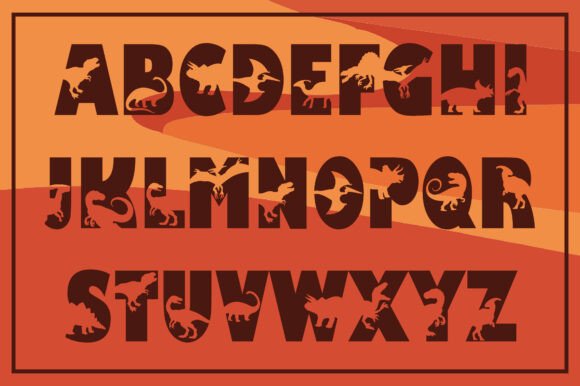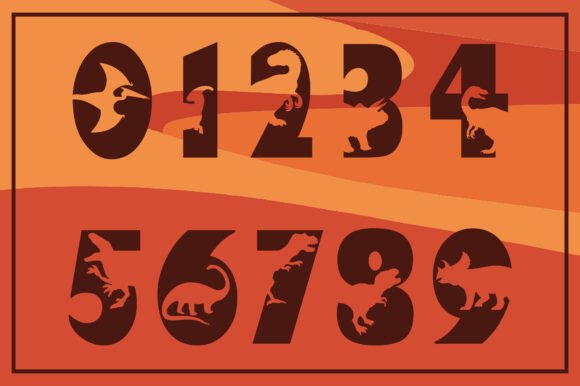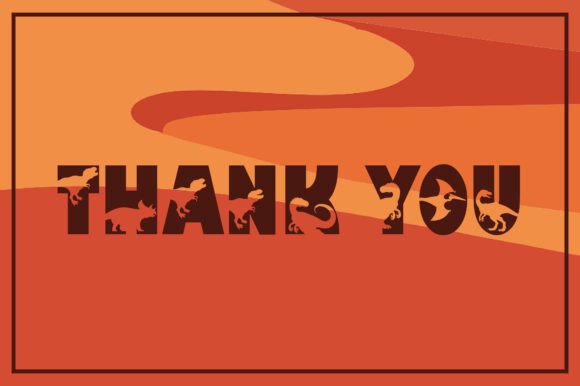
Bringing Prehistoric Fun to Your Projects with Dinosaur Font
As a designer, I’ve had my fair share of projects that required a playful touch. One particular project that comes to mind is when I was tasked with creating a birthday party invitation for a 5-year-old dinosaur enthusiast. I spent hours scouring the internet for the perfect font, but nothing seemed quite right. That was until I stumbled upon the Dinosaur Font SVG 🦕. It’s been a game-changer for my design projects, and I’m excited to share its awesomeness with you!
What Makes Dinosaur Font So Special?
This delightful font is perfect for kids’ crafts, birthday party decorations, classroom projects, and cutting machines like Cricut or Silhouette. The set includes the full A–Z alphabet, numbers 0–9, and bonus dinosaur clipart, all designed in a playful style that kids will adore.
Here’s what I love about Dinosaur Font:
- ✨ Playful and fun design that’s perfect for kids’ projects
- ✅ Includes the full alphabet, numbers, and bonus clipart
As for quirks or limitations, I’ve noticed:
- 🤔 Some characters may not work well in smaller font sizes
- ⚠️ Limited use for formal or professional projects (unless you’re going for a quirky vibe)
The Story Behind Dinosaur Font
Legend has it that the designer of Dinosaur Font was a childhood friend of a renowned paleontologist. Growing up, they spent hours exploring the outdoors, collecting fossils, and imagining what life would have been like during the Mesozoic Era. As a designer, they wanted to bring that sense of wonder and excitement to their work. And thus, Dinosaur Font was born – a playful tribute to the prehistoric world that kids and adults alike can’t get enough of.